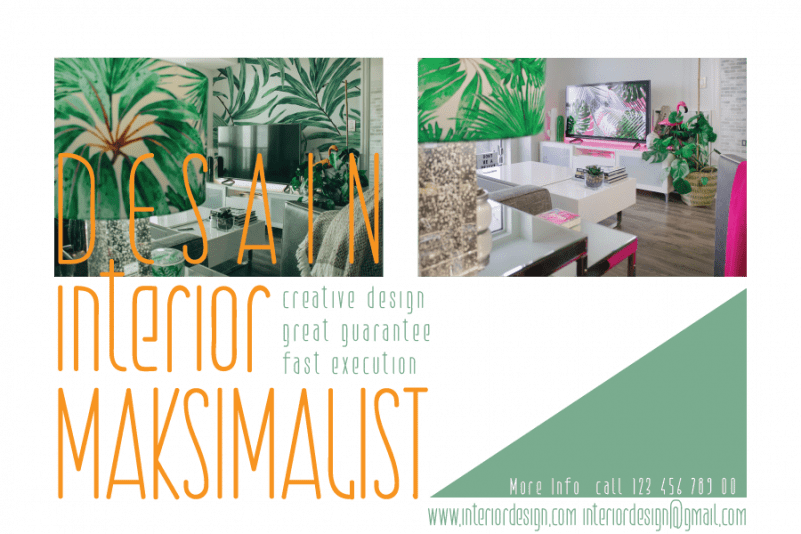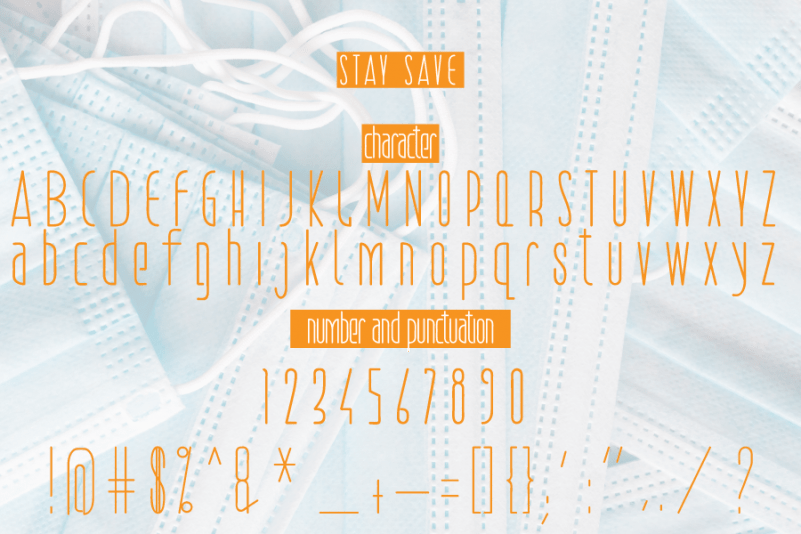
STAY SAVE Font
STAY SAVE Sans Serif Font
This is a well balanced, refined script font that emanates sophistication and elegance. Its stylish alternates and ligatures make this font the perfect match for any project.